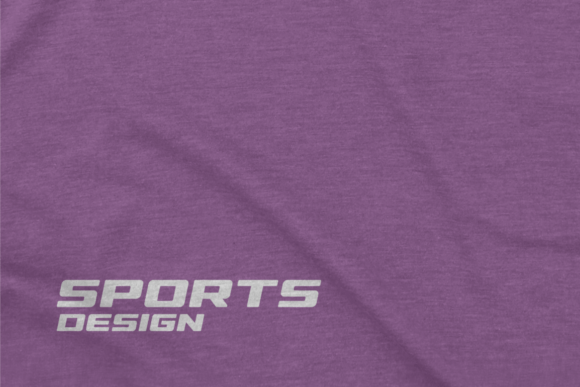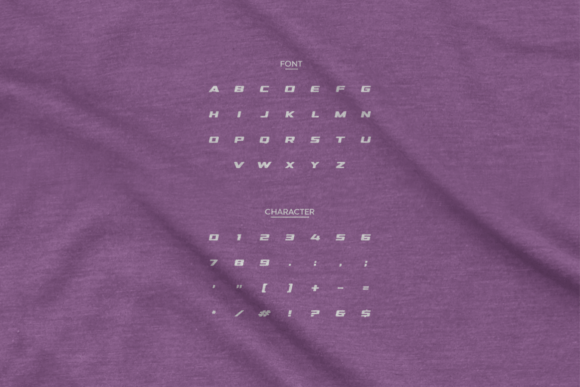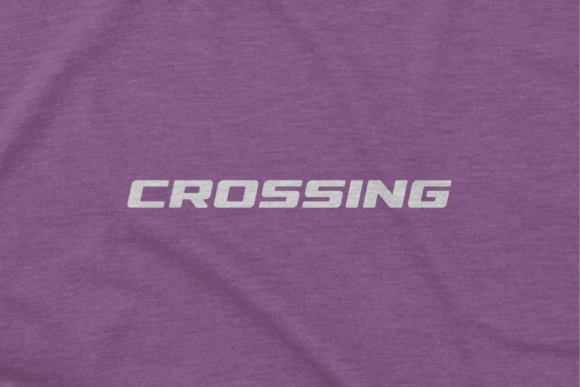
Cruiser Font: Elevate Your Designs with a Modern Sports-Themed Twist
In the realm of typography, fonts play a pivotal role in defining the aesthetic and tone of any design project. Whether you’re a seasoned designer or a crafty DIY enthusiast, the right font can elevate your work from ordinary to extraordinary. This is where the Cruiser Font comes into play—a modern, sports-themed sans serif font designed to infuse a unique touch into your web designs, business cards, and a myriad of other creative projects.
What is Cruiser Font?
Cruiser Font is a contemporary sans serif typeface that draws inspiration from the dynamic and energetic world of sports. Its clean lines, coupled with a hint of athleticism, make it a versatile choice for various design applications. The font’s modern aesthetic ensures it stands out in a crowded digital landscape, making it perfect for designers looking to leave a lasting impression.
Key Features of Cruiser Font
- Modern Aesthetic: The Cruiser Font boasts a sleek and modern design that aligns with current typography trends. Its clean and uncluttered appearance ensures readability across different devices and screen sizes.
- Sports-Themed Inspiration: The font’s inspiration from sports gives it an energetic and youthful vibe. This makes it an excellent choice for projects related to sports, fitness, and lifestyle.
- Sans Serif Design: The sans serif design of Cruiser Font lends it a contemporary and minimalist look. This simplicity makes it highly versatile and easy to integrate into various design contexts.
- High Versatility: Whether you’re working on a website, a business card, or promotional materials, Cruiser Font adapts seamlessly. Its flexibility allows designers to experiment with different styles and tones.
Use Cases for Cruiser Font
The Cruiser Font’s adaptability and distinctive style make it suitable for a wide range of applications. Here are some of the most compelling use cases:
- Web Design: In the digital realm, first impressions are crucial. Cruiser Font can be used to create stunning website headers, navigation menus, and call-to-action buttons that captivate visitors.
- Business Cards: Stand out in a stack of business cards with a modern and memorable font. Cruiser Font’s unique style ensures your card doesn’t get lost in the shuffle.
- Social Media Graphics: Enhance your social media presence with engaging graphics that incorporate Cruiser Font. Its sports-themed essence can be particularly effective for fitness, sports, and lifestyle brands.
- Marketing and Advertising Materials: From brochures and flyers to billboards and digital ads, Cruiser Font can add a dynamic touch to your marketing materials, making them more eye-catching and effective.
Tips for Maximizing Cruiser Font’s Potential
To get the most out of Cruiser Font, consider the following design tips:
- Pair with Complementary Fonts: While Cruiser Font can stand alone, pairing it with complementary fonts can add depth and hierarchy to your designs.
- Experiment with Colors: The font’s versatility extends to color schemes. Experiment with bold and contrasting colors to highlight its modern appeal.
- Consider Line Spacing and Kerning: Pay attention to line spacing and kerning to ensure optimal readability and aesthetic balance.
Cruiser Font emerges as a powerful tool in the arsenal of designers and crafters looking to infuse a modern sports-themed twist into their projects. Its clean design, versatility, and energetic vibe make it an excellent choice for a wide range of applications. By incorporating Cruiser Font into your designs, you’re not just choosing a typeface; you’re adopting a style statement that speaks of dynamism and modernity. So, dive into the world of Cruiser Font and discover how it can transform your creative projects into visually stunning and impactful designs.